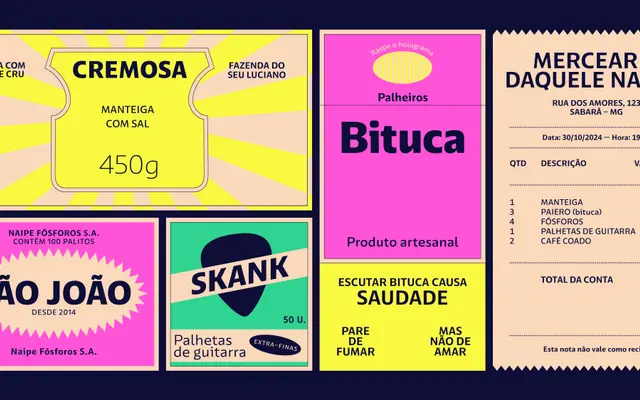
A 14-style variable sans from Naipe Foundry, built for UI design with a Minas Gerais–inflected character.
Designed explicitly for user-interface work, Uai offers seven weights from Thin to Black in both static and variable formats, with a dedicated Darkmode subfamily optimised for light-on-dark rendering. OpenType features include alternate forms for a, g, i and l, tabular figures, slashed zero and case-sensitive punctuation, giving it the technical toolkit expected of a serious UI face. The family covers an extensive Latin character set spanning hundreds of languages, and carries a quiet regional identity rooted in the culture of Minas Gerais, Brazil.
A clean, upright sans-serif with geometric tendencies and humanist details, purpose-built for UI environments. Alternate letterforms for a, g, i and l are characteristic of screen-focused geometric sans families.